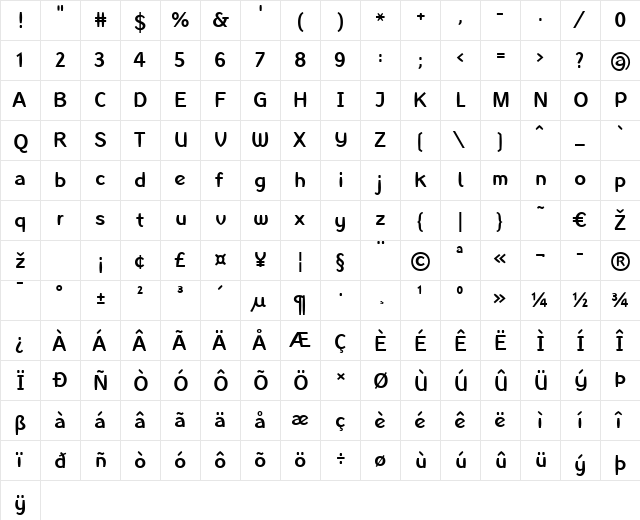
LTInagur Medium Regular
| Designer | Hans-Jurgen Ellenberger |
Design Context for LTInagur Medium Typeface
LTInagur Medium is a composed and adaptable typeface that performs quietly and consistently across a wide range of design contexts.